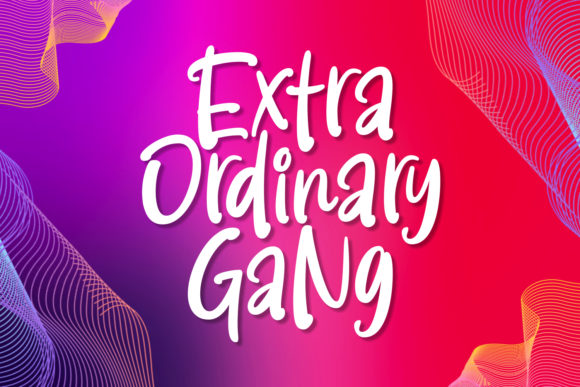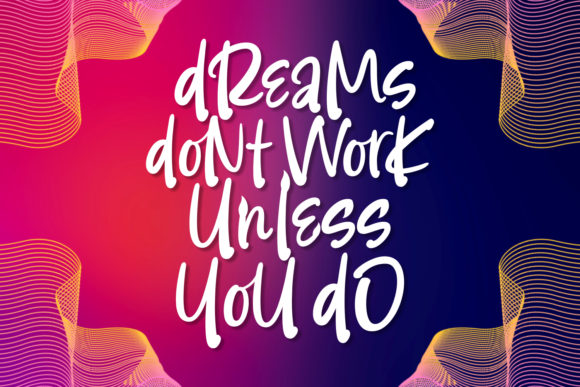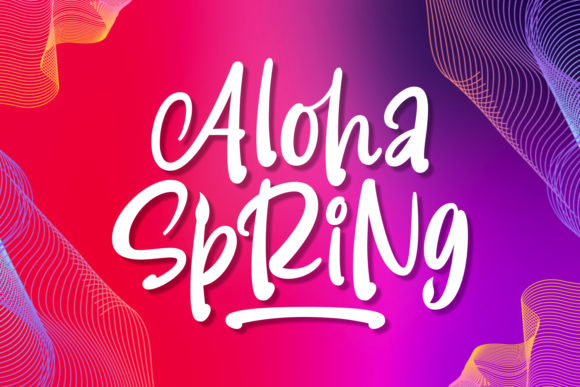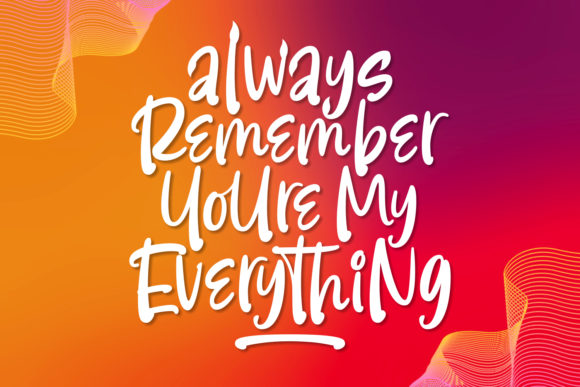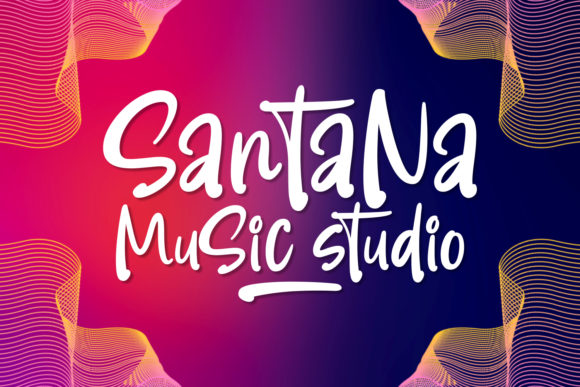
Extra Ordinary Gang Font
About Extra Ordinary Gang Font
Extra Ordinary Gang is a fun and bold handwritten font with a unique charm. It will turn any design project into a true stand out!